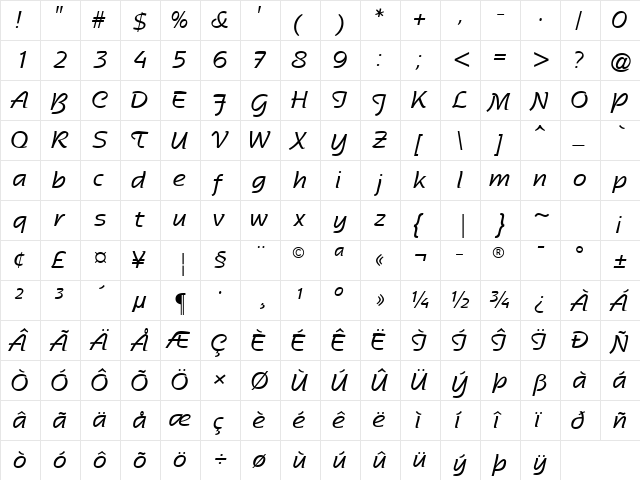
RossonSSK Regular
Design Context for RossonSSK Typeface
RossonSSK takes a measured approach to typography — its balanced proportions and neutral character make it a reliable workhorse for both digital and print work.